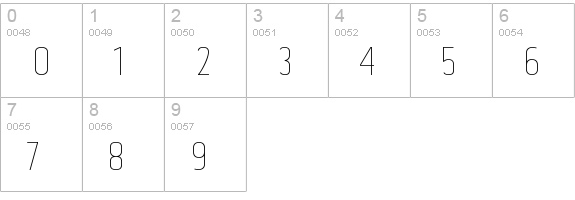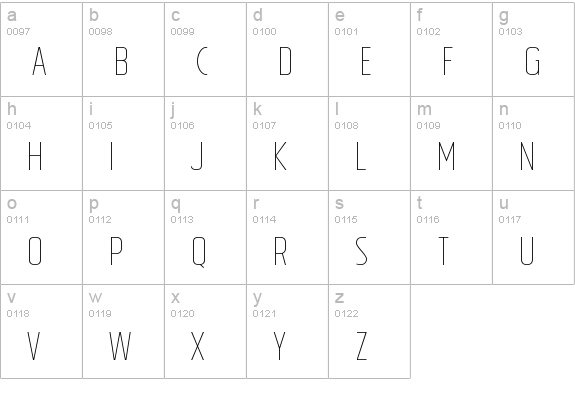
Tolyer Thin no.4 is a delicate, low-contrast variant in the Tolyer typeface family \xE2\x80\x94 well suited to fashion editorial, minimal branding, and high-contrast display.
Tolyer Thin no.4 font is a sleek and elegant typeface perfect for modern designs. With its thin and delicate letterforms, this font exudes sophistication and style. It is ideal for creating eye-catching headlines, elegant logos, and stylish branding materials. The clean lines and minimalistic design of Tolyer Thin no.4 font make it a versatile choice for a variety of design projects. And the best part? Tolyer Thin no.4 font is available for free download at FontsMarket.com. This means you can easily add this stunning font to your collection without spending a penny. Whether you're a professional designer or a casual enthusiast, Tolyer Thin no.4 font is a must-have addition to your font library. Download it today and elevate your designs with this beautiful and modern typeface.